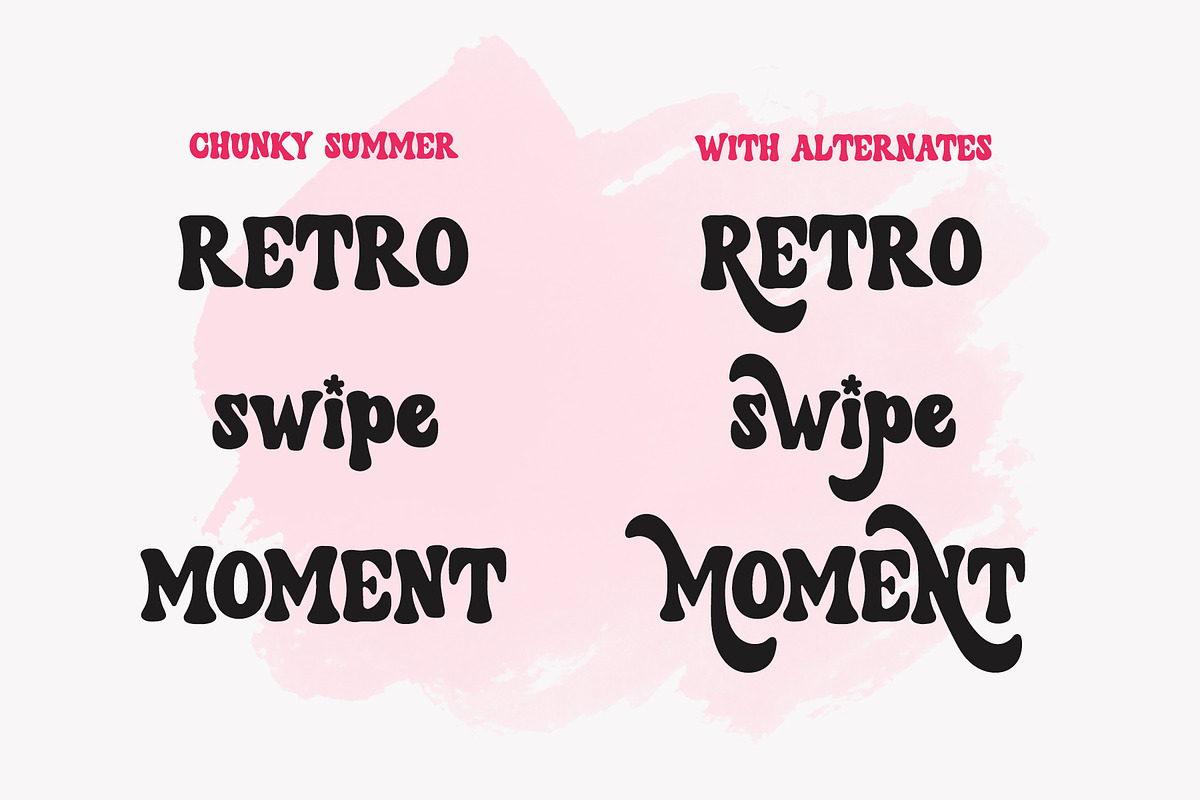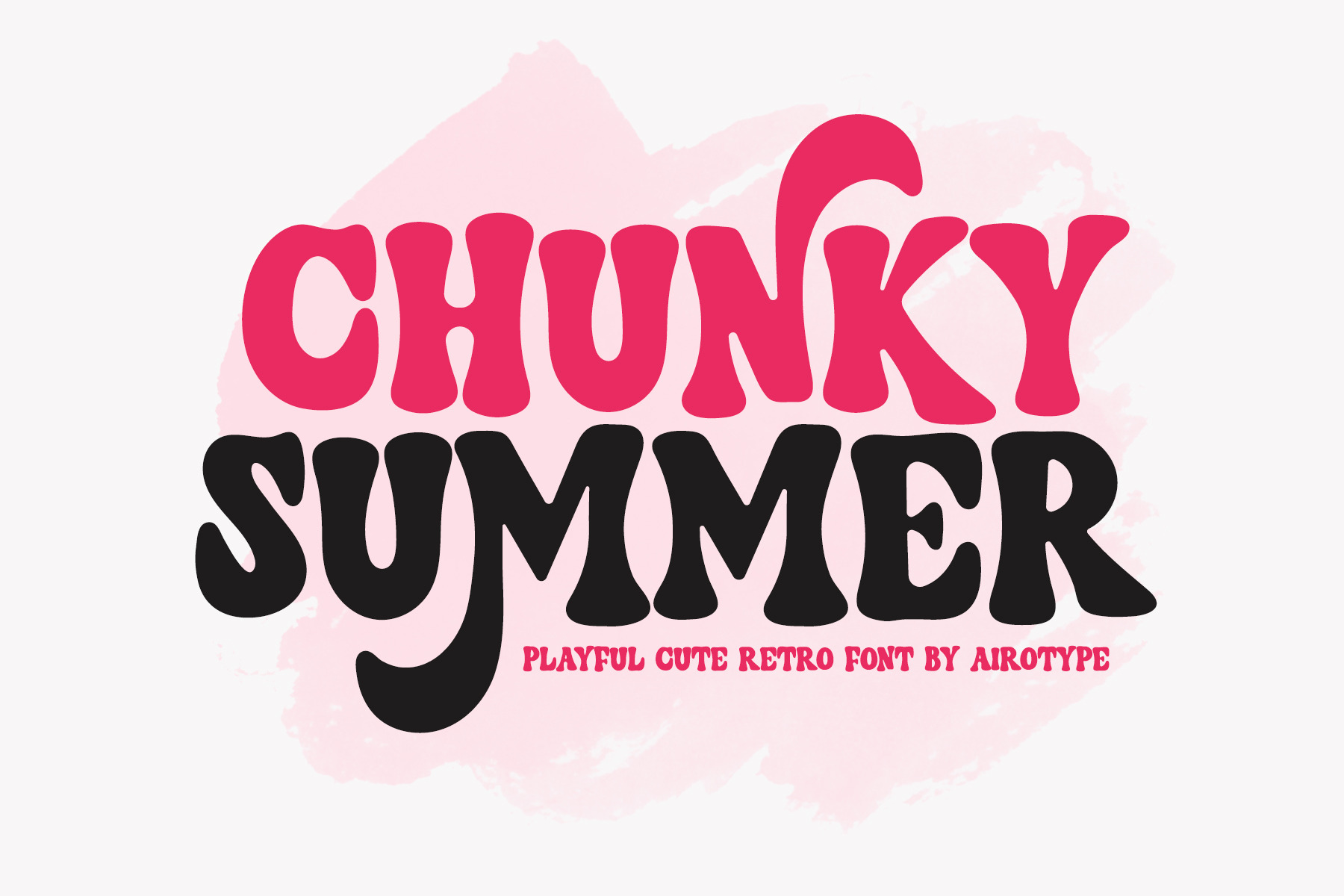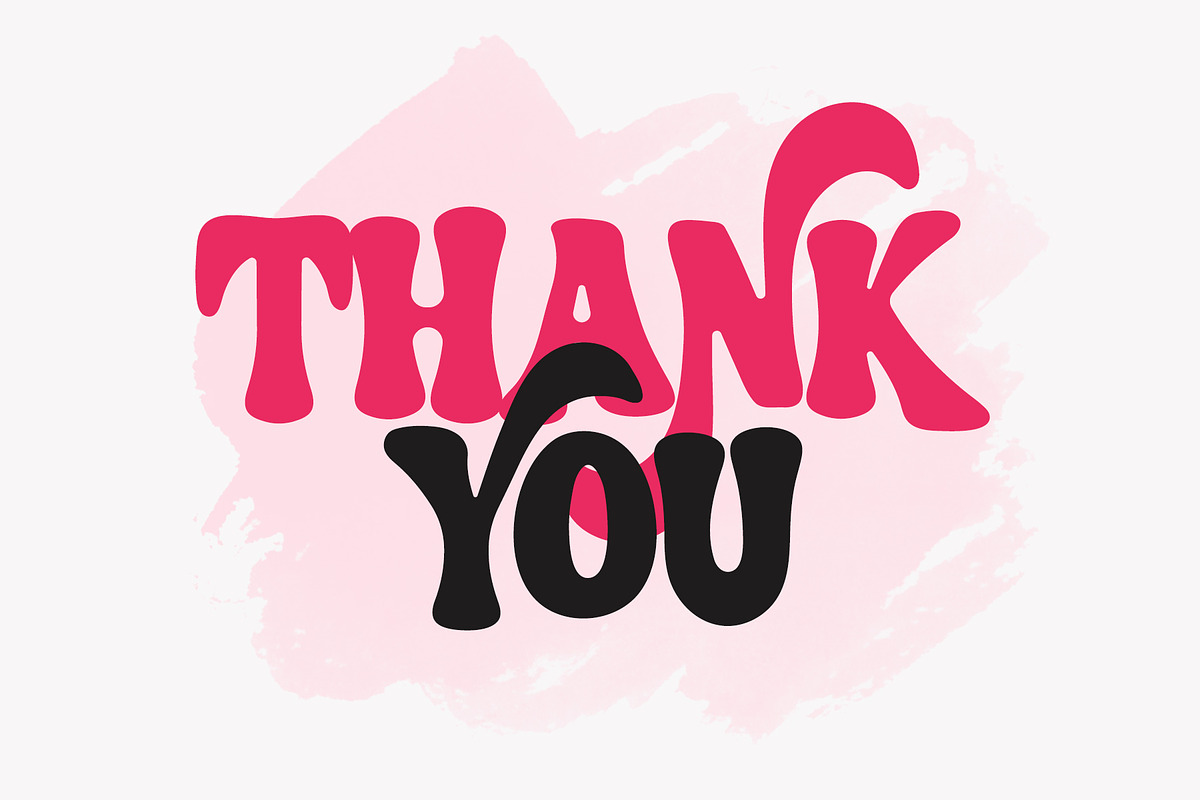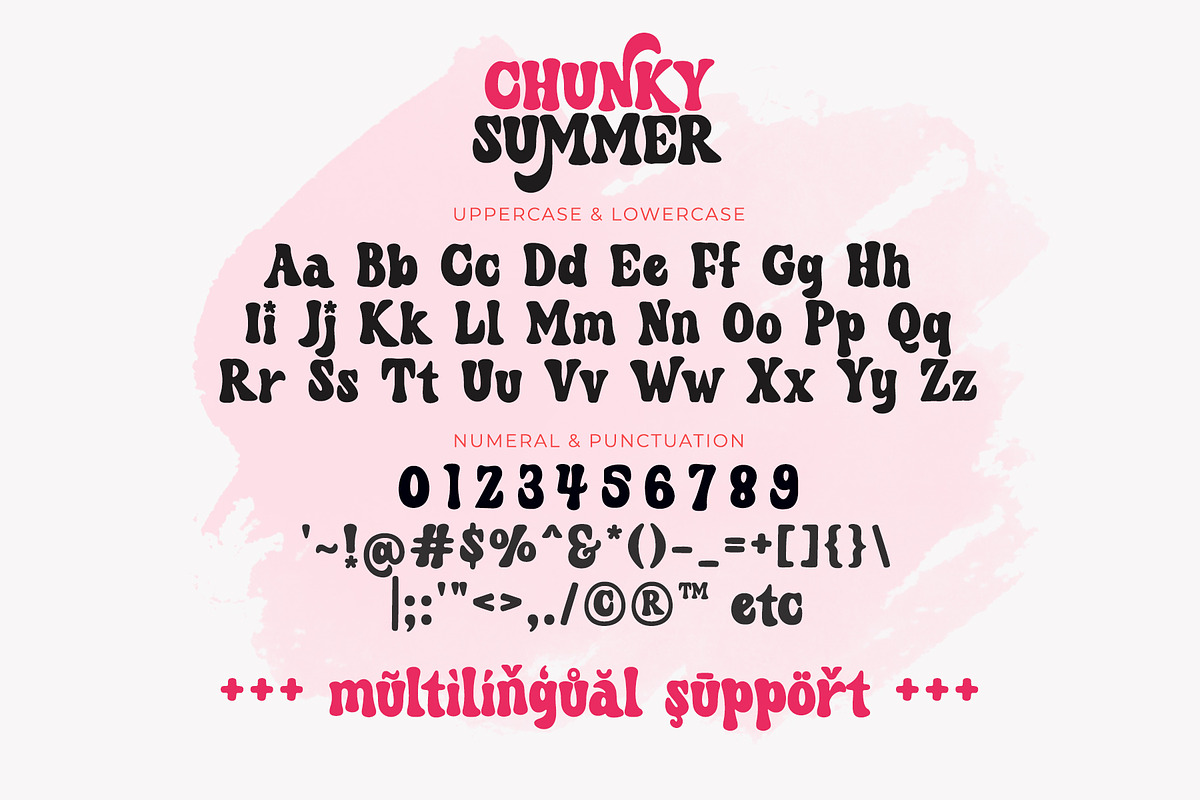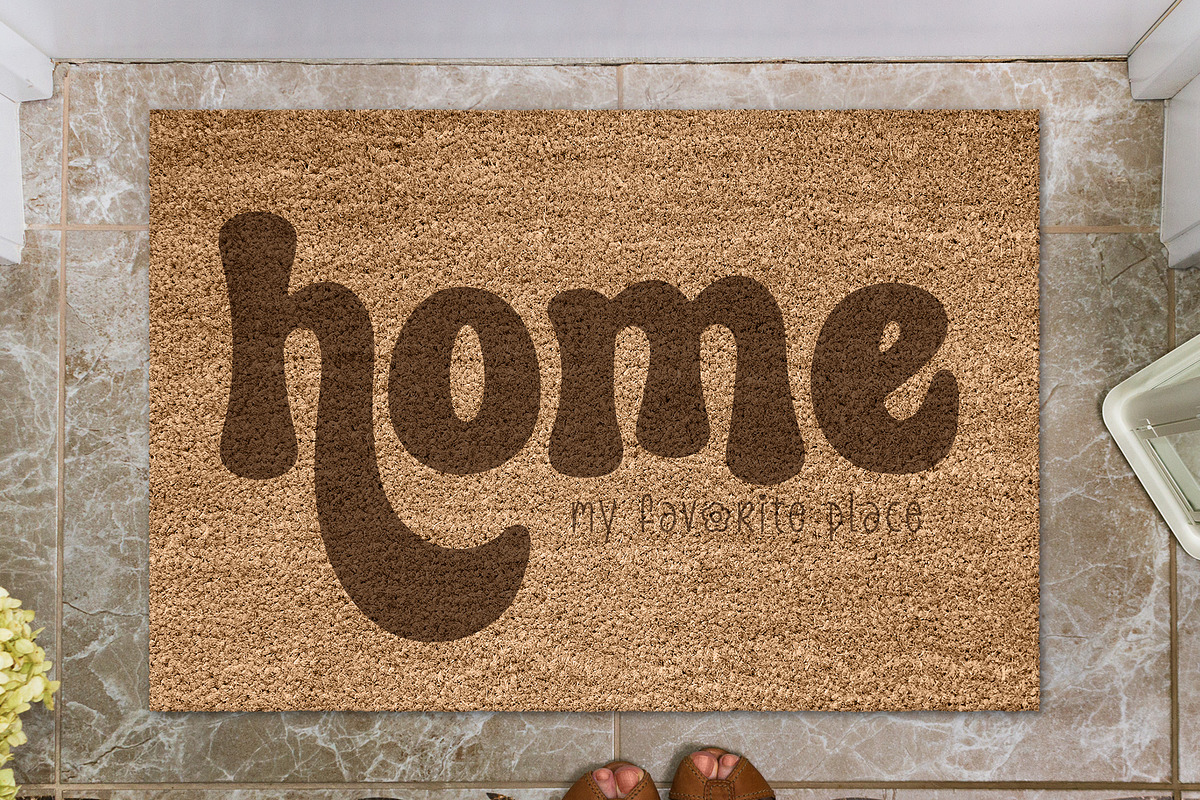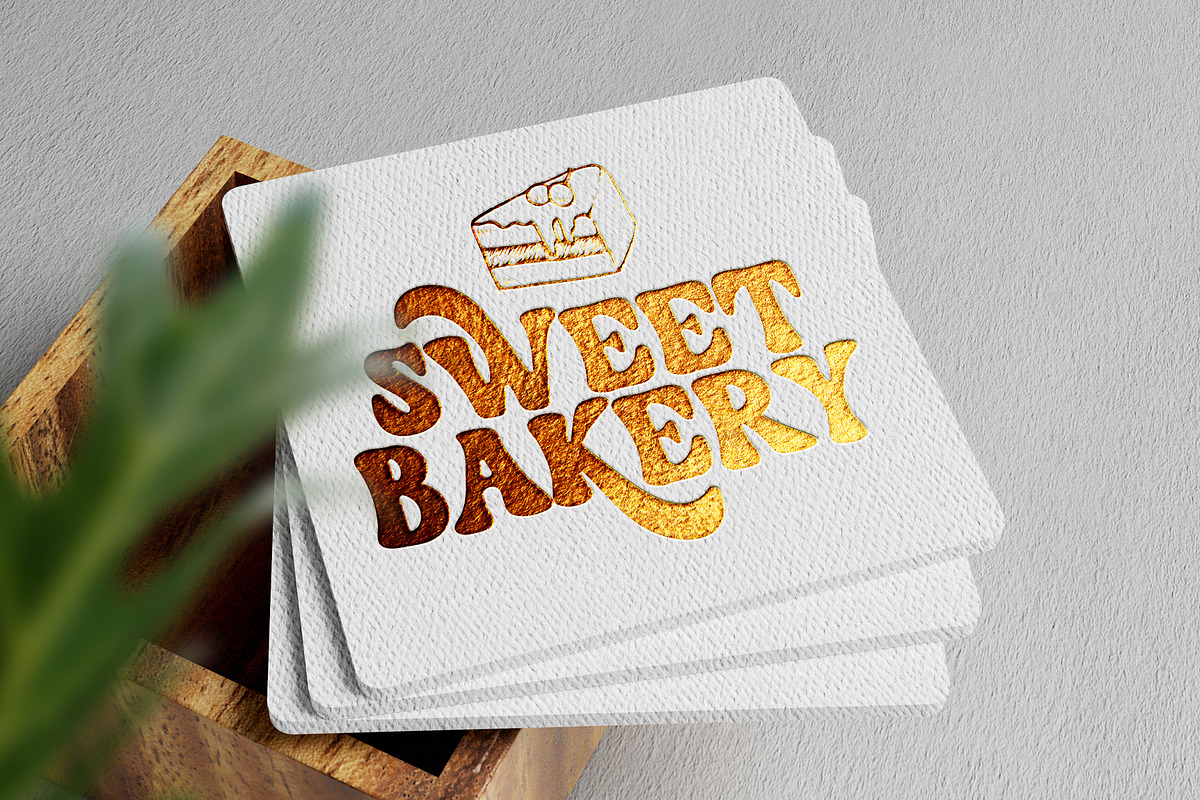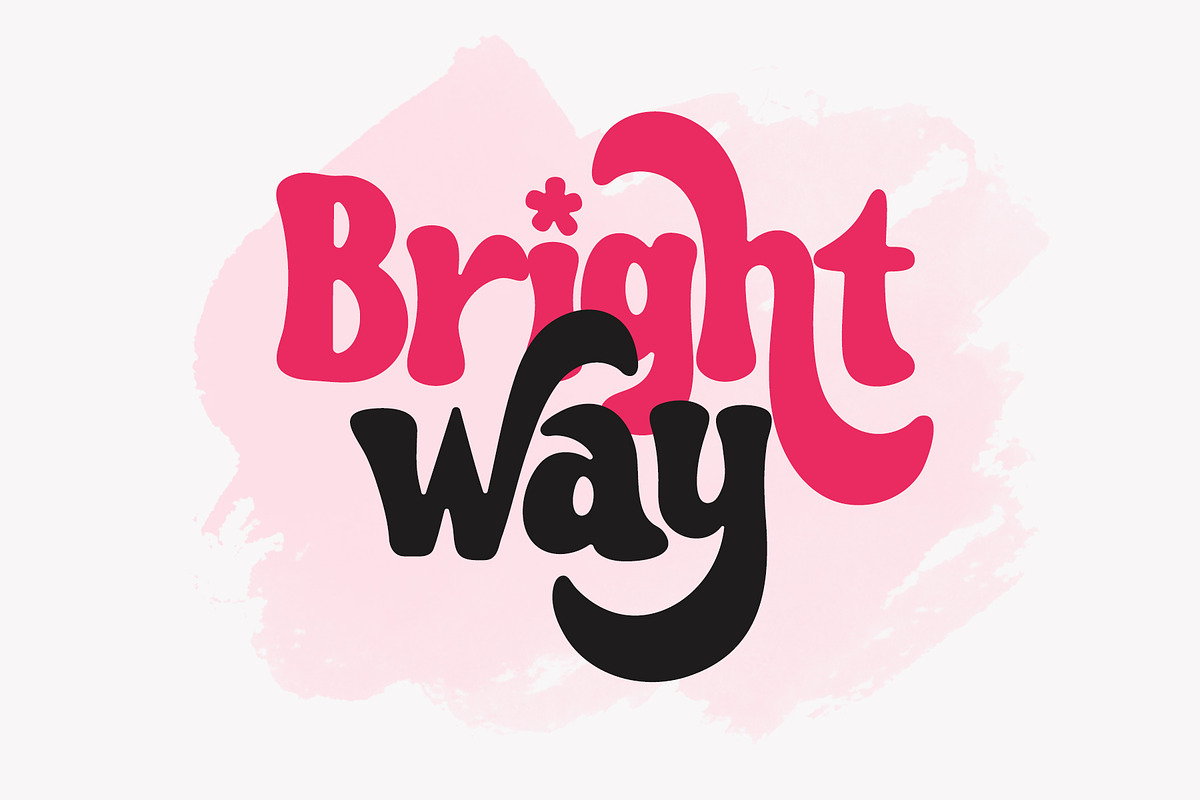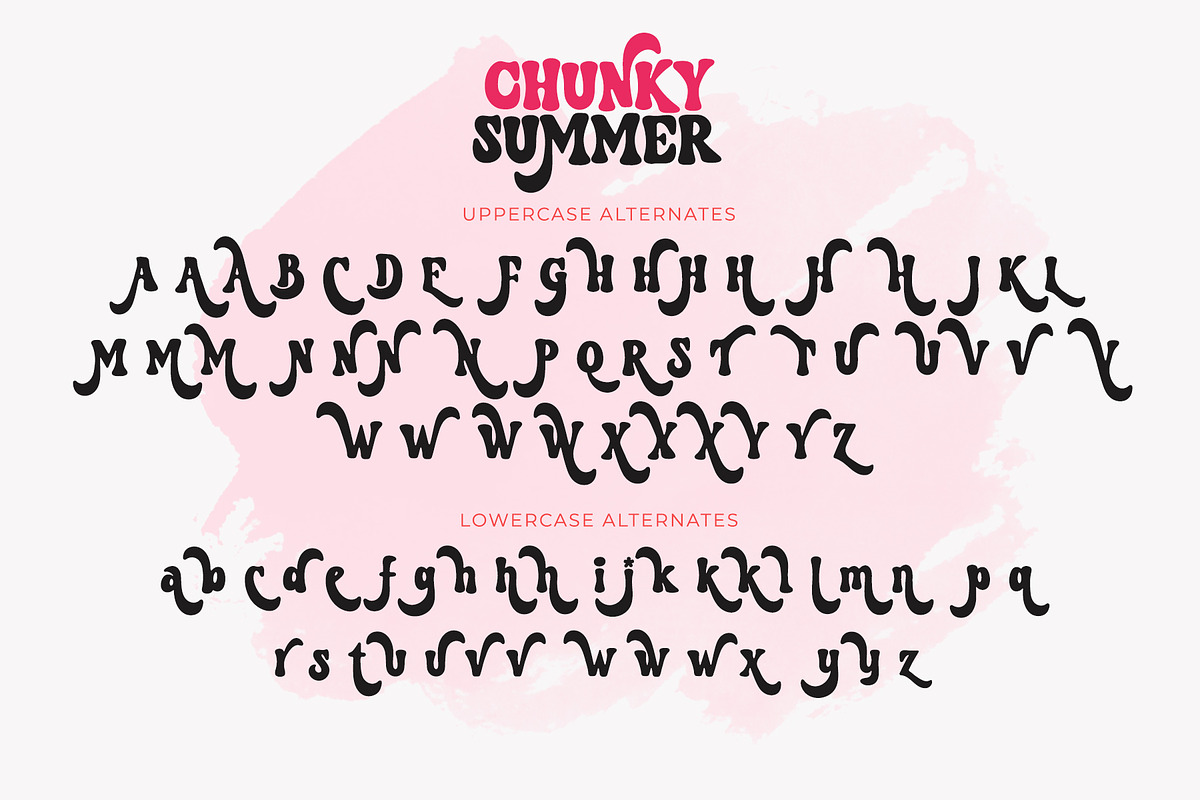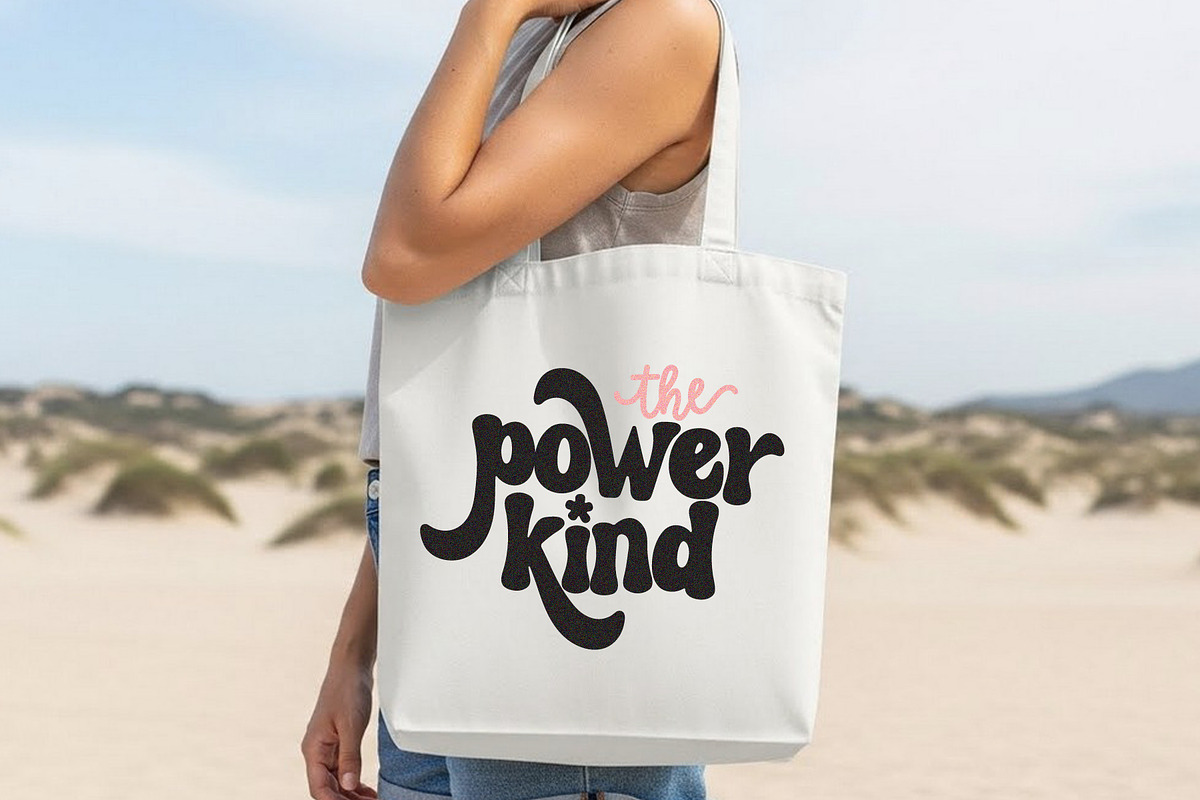
Chunky Summer - Groovy Retro Font
Chunky Summer is cute retro font with bouncy and playful touch. This font radiates vintage, fancy, and happiness.
Chunky Summer has some extra glyphs/alternates for uppercase and lowercase to give more options in designing.
Chunky Summer font is pretty cute font for design with fun retro touch, such as back to school design, kids design, birthday invitation, summer design, vintage design, t-shirt design, crafting, sticker, sublimation, and many more.
Uppercase & Lowercase (with alternates)
Numeral and Punctuation
Most Multilingual Accent